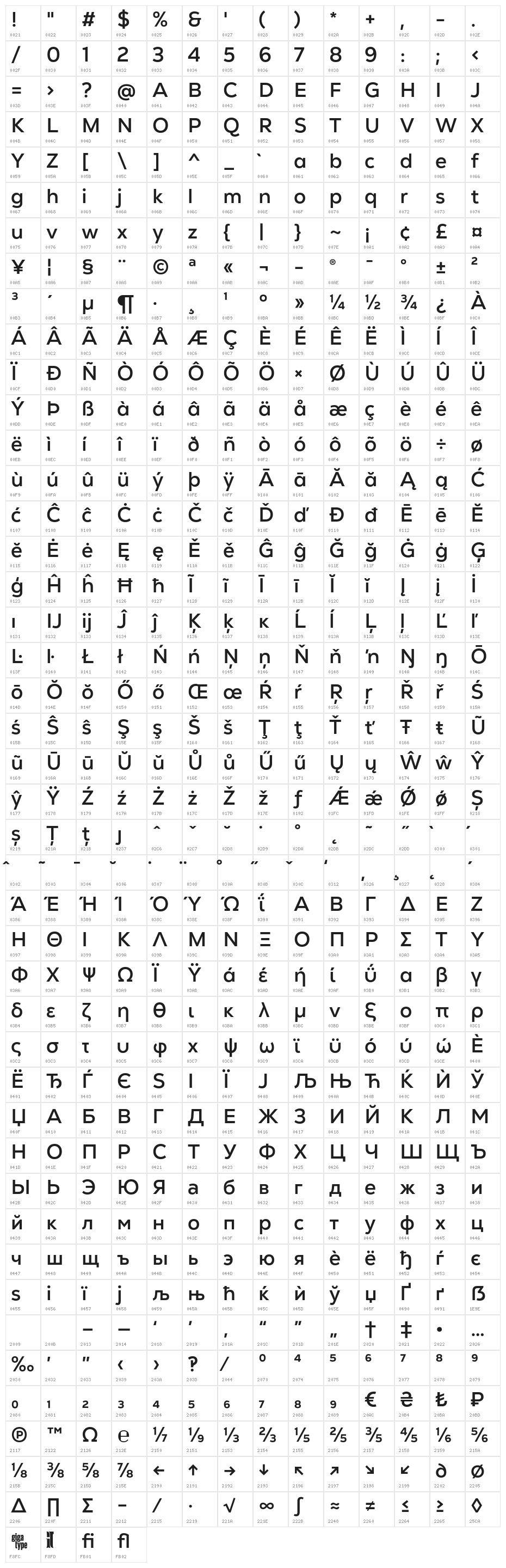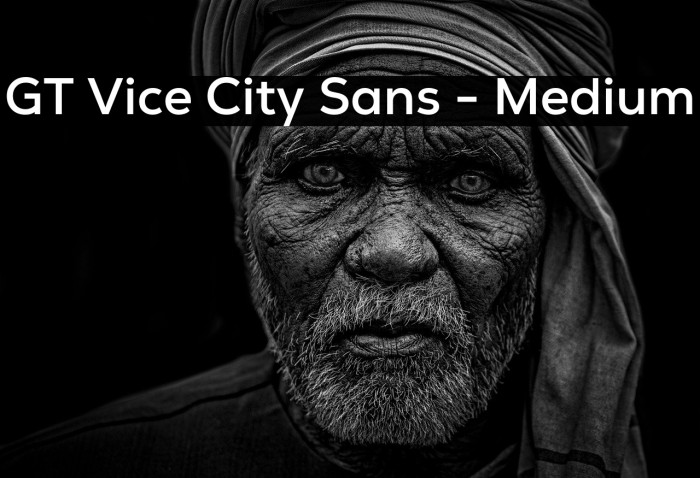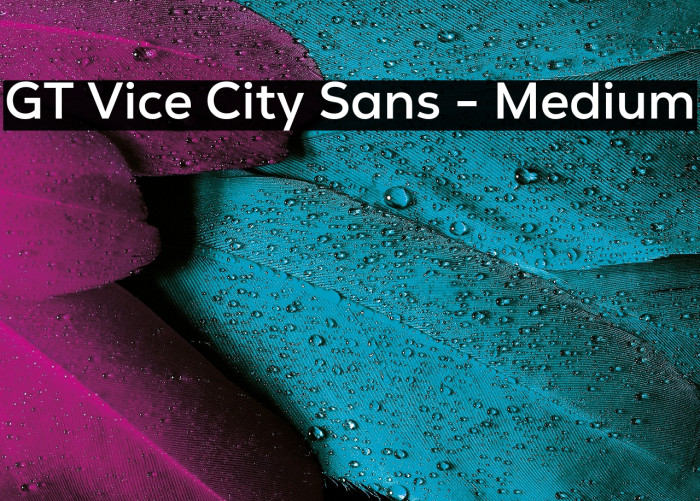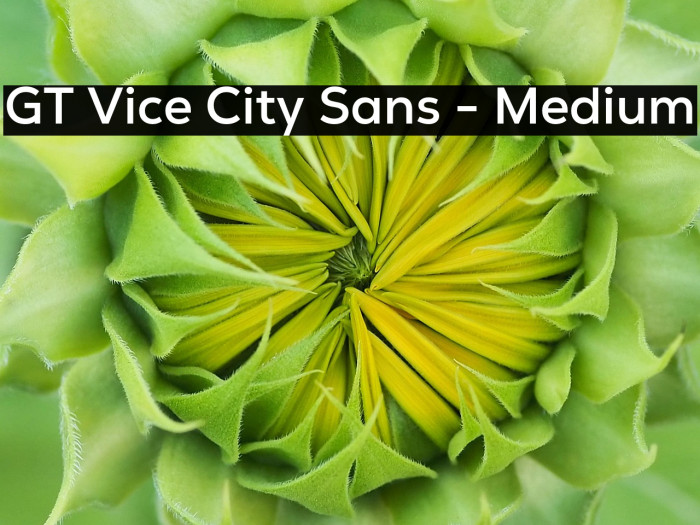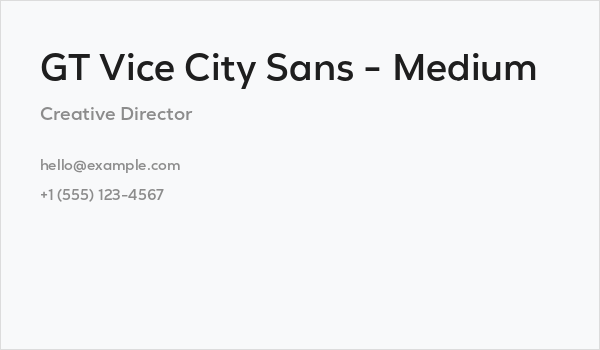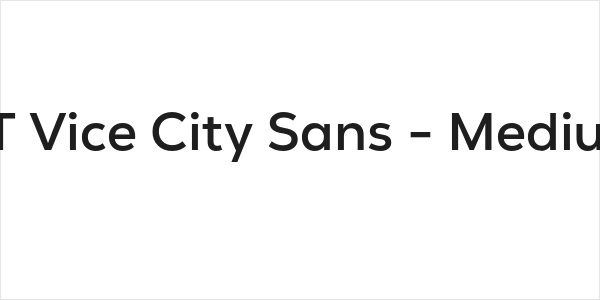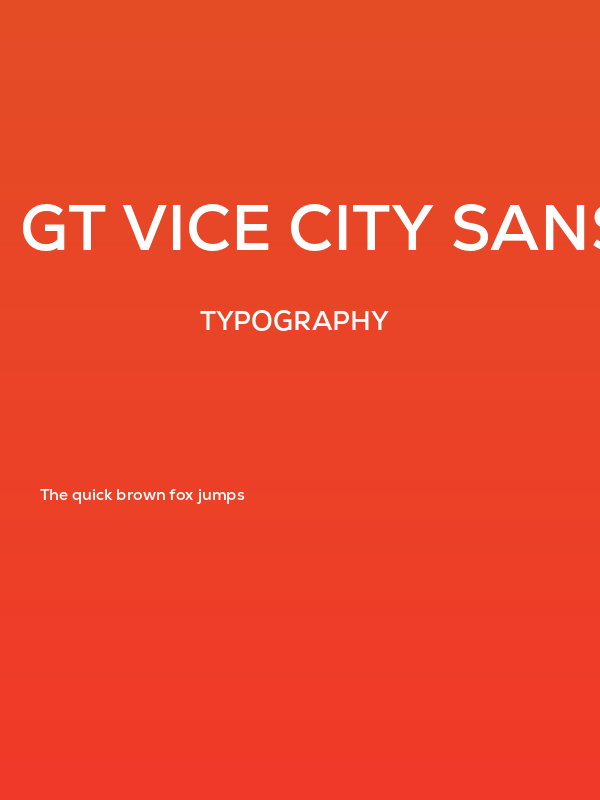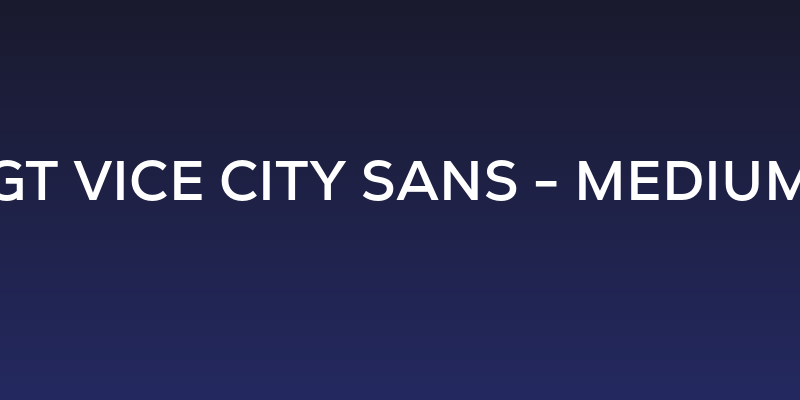
GT Vice City Sans - Medium Font
GT Vice City Sans - Medium Description
A clean and modern sans-serif font with uniform stroke width and geometric shapes, providing a contemporary and professional appearance.